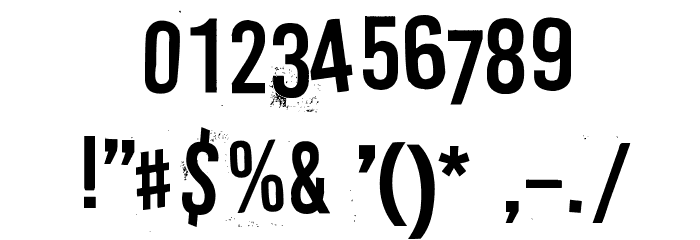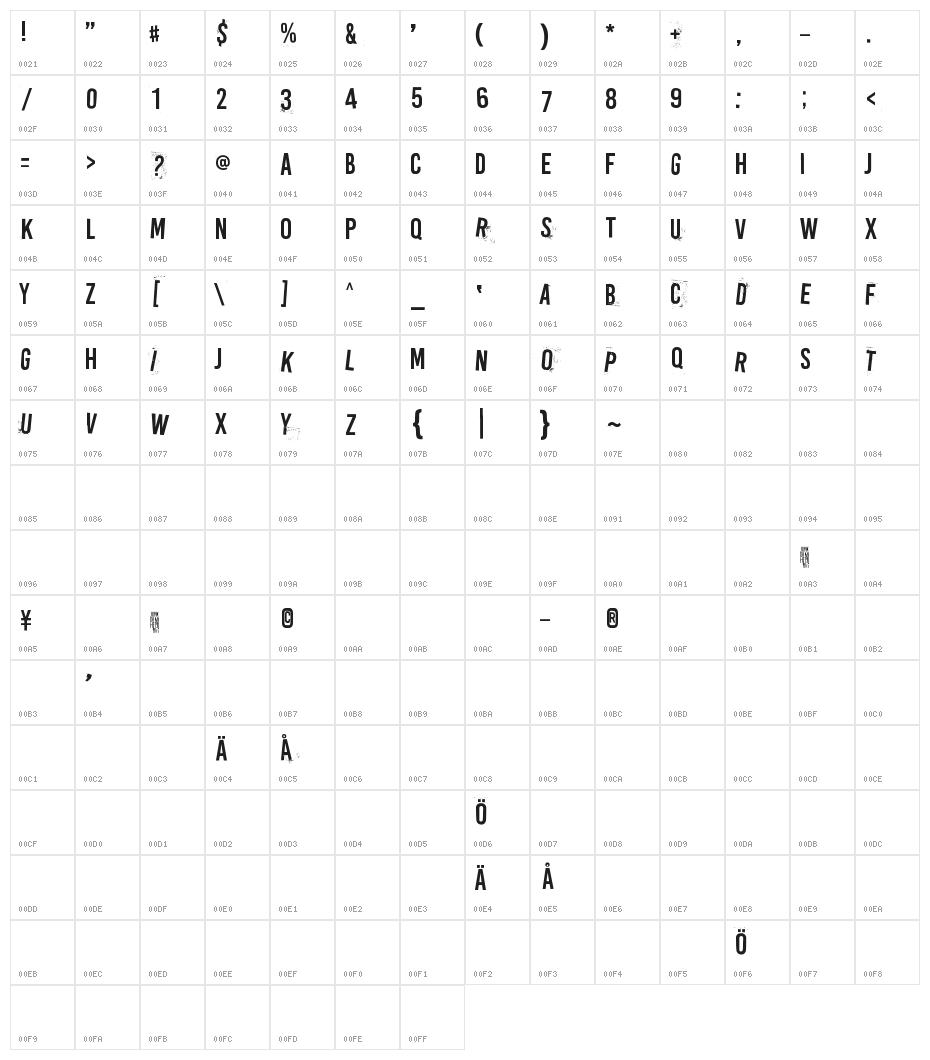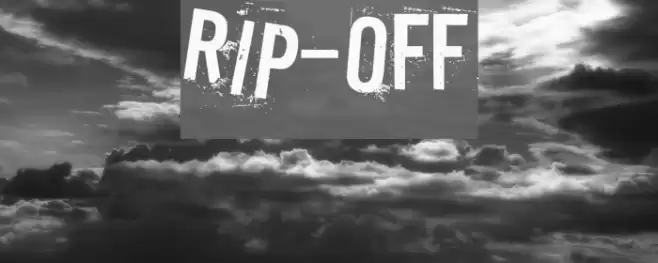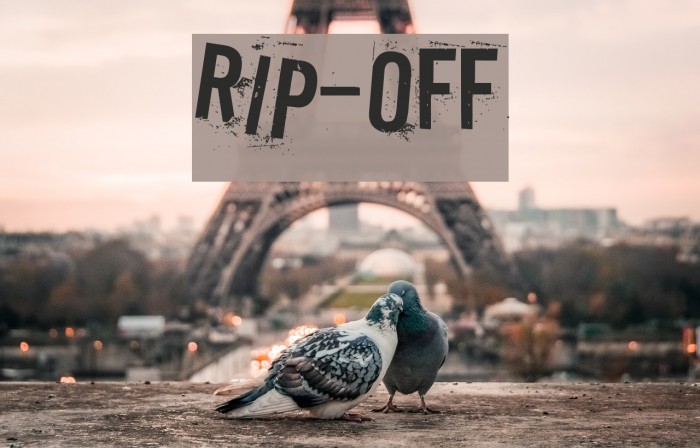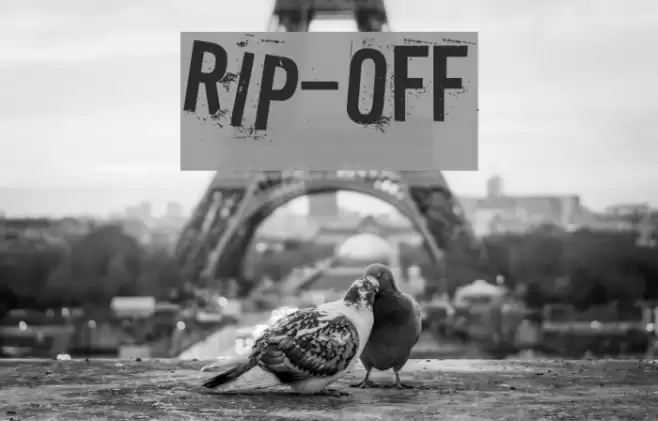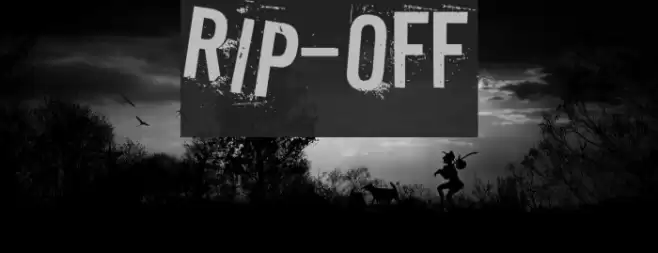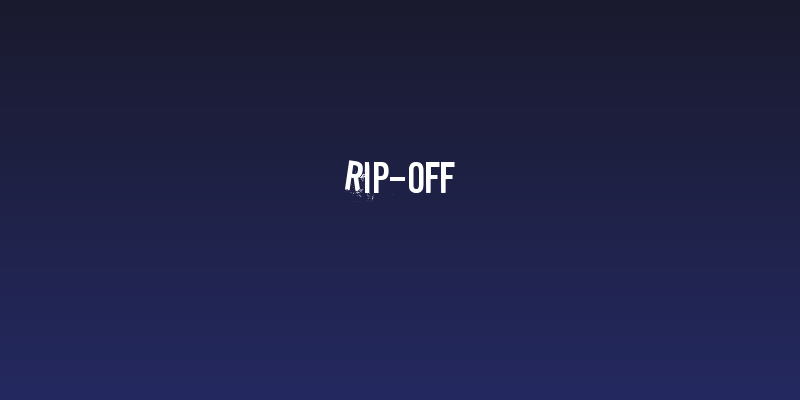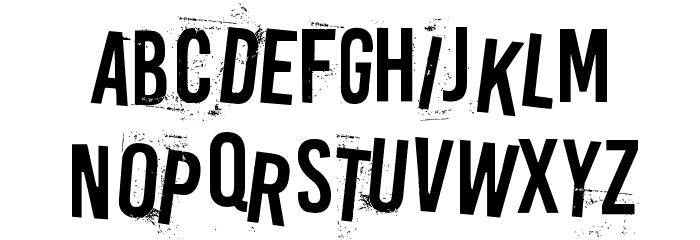
Rip-off Font
Rip-off Description
This font features a bold, distressed style with a gritty texture that gives it a rugged and worn appearance. The uppercase letters are prominent and slightly condensed, while the lowercase letters maintain a consistent height, contributing to a cohesive look. Numbers and special characters are designed with the same distressed effect, enhancing the overall aesthetic. The font's unique texture and boldness make it stand out, ideal for projects that require a strong visual impact. The irregularities in the texture add character and a vintage feel, making it suitable for designs that aim to convey a sense of history or authenticity.
| Proposed Projects | Ideal for posters, album covers, branding, and any design needing a strong, vintage aesthetic. |